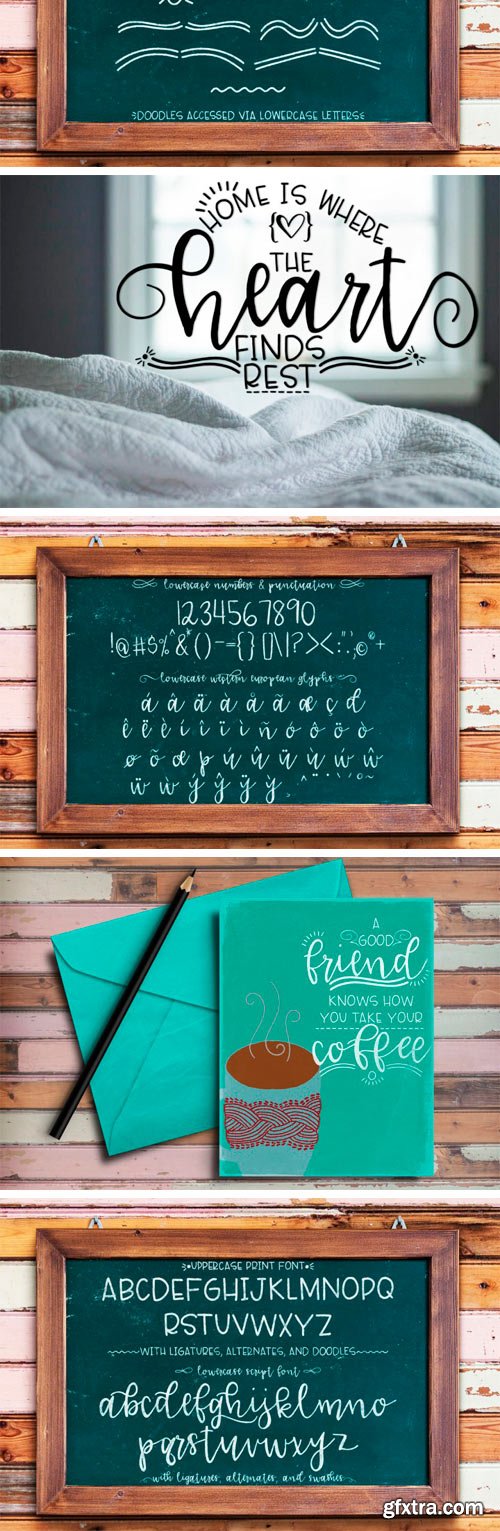
Thehungryjpeg - Lucille Hand Lettered Font Duo 87352
Give your designs a hand-lettered dose of personality with font duo, Lucille Handlettered! This font (uppercase Print and lowercase Script) was designed to work perfectly with each other to create a unique and genuine hand-lettered look and feel to all your projects.